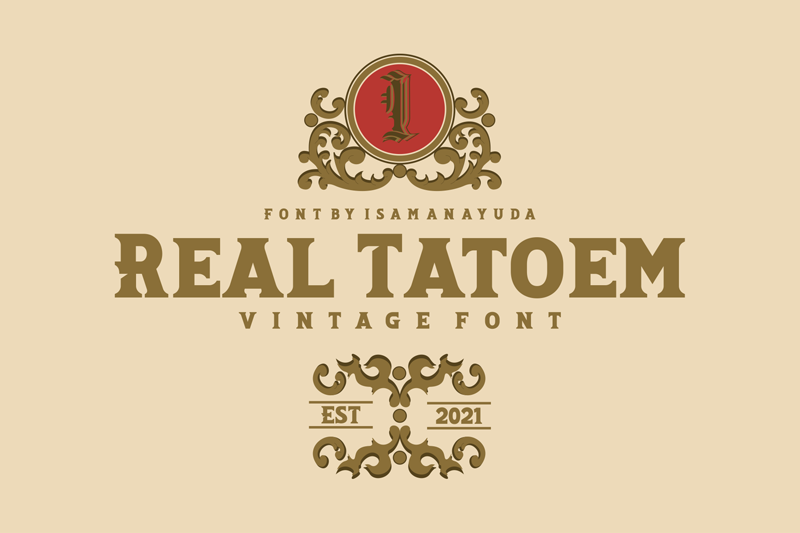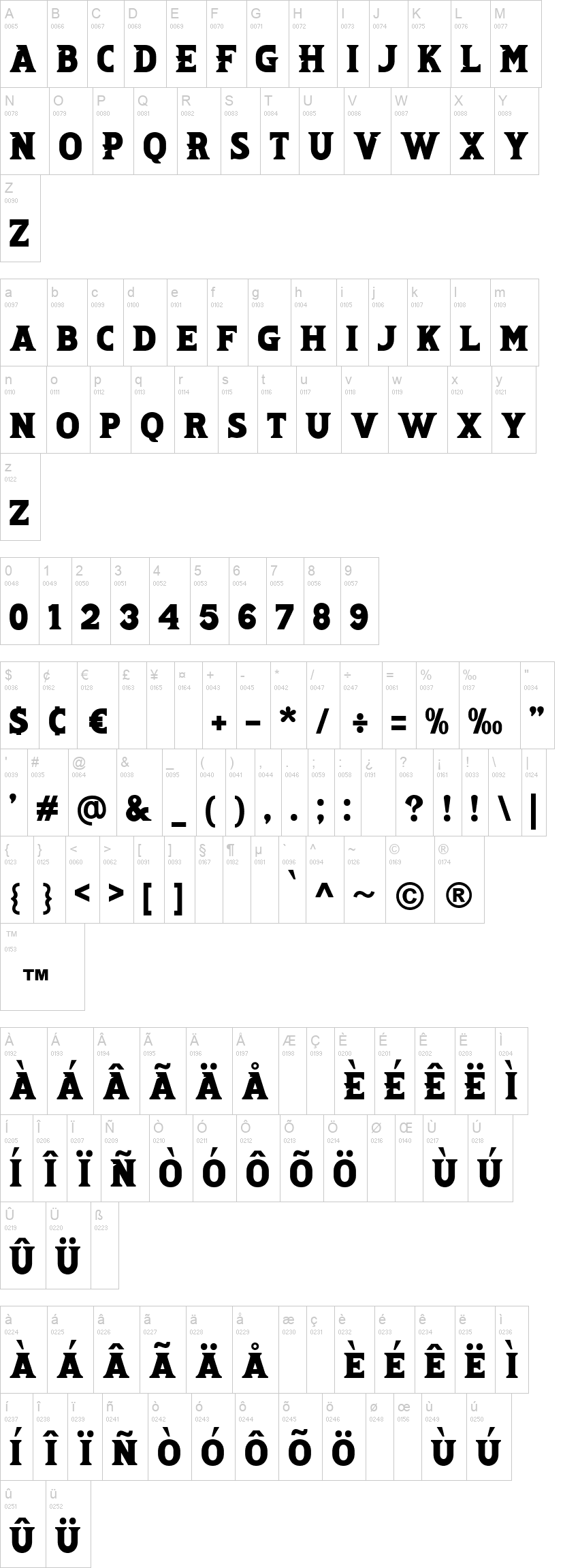
Note of the authorReal Tatoem is a cool, bold and thick lettered display font. Add this vintage styled font to each of your labels, posters or game titles and you will be amazed by the outcome.